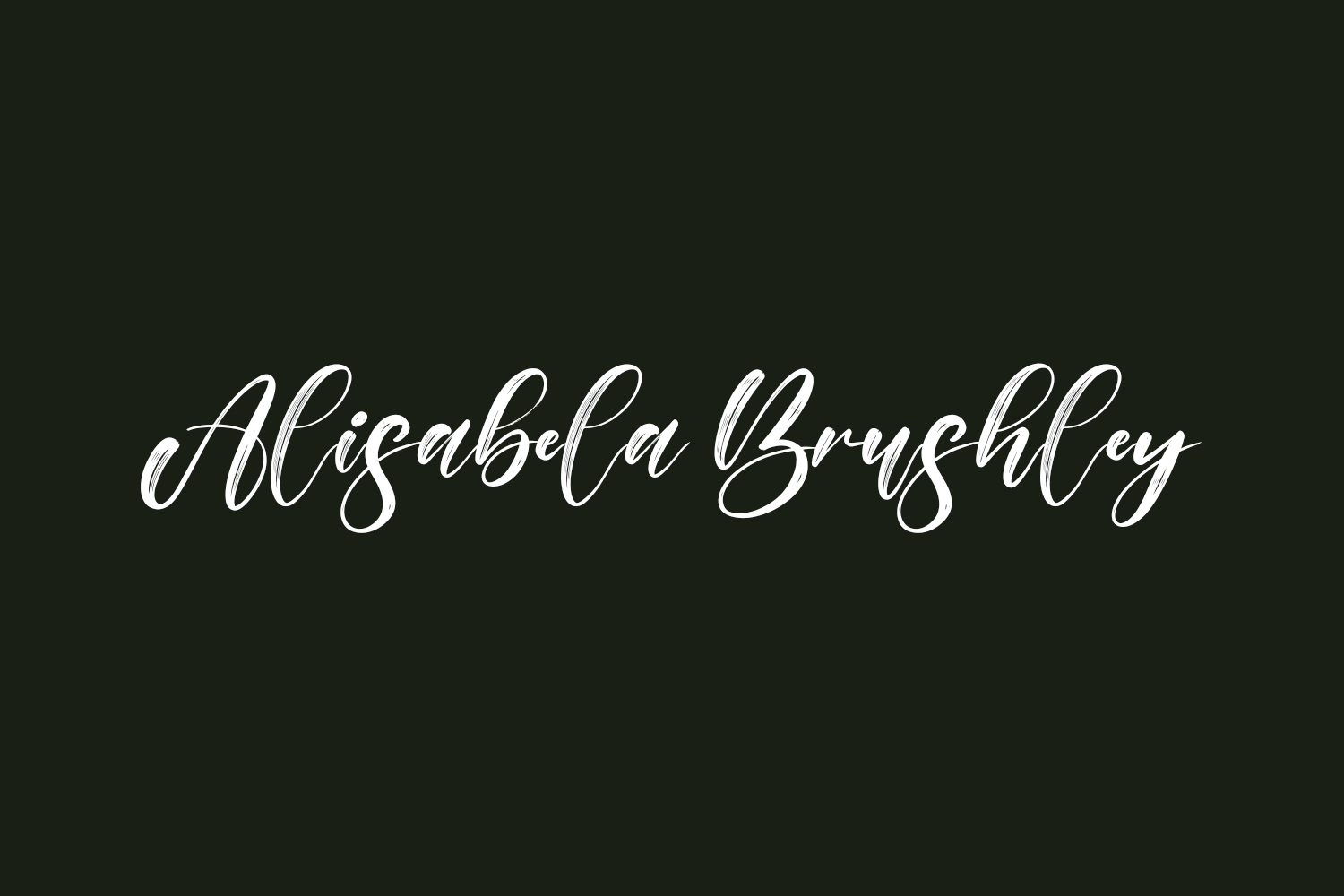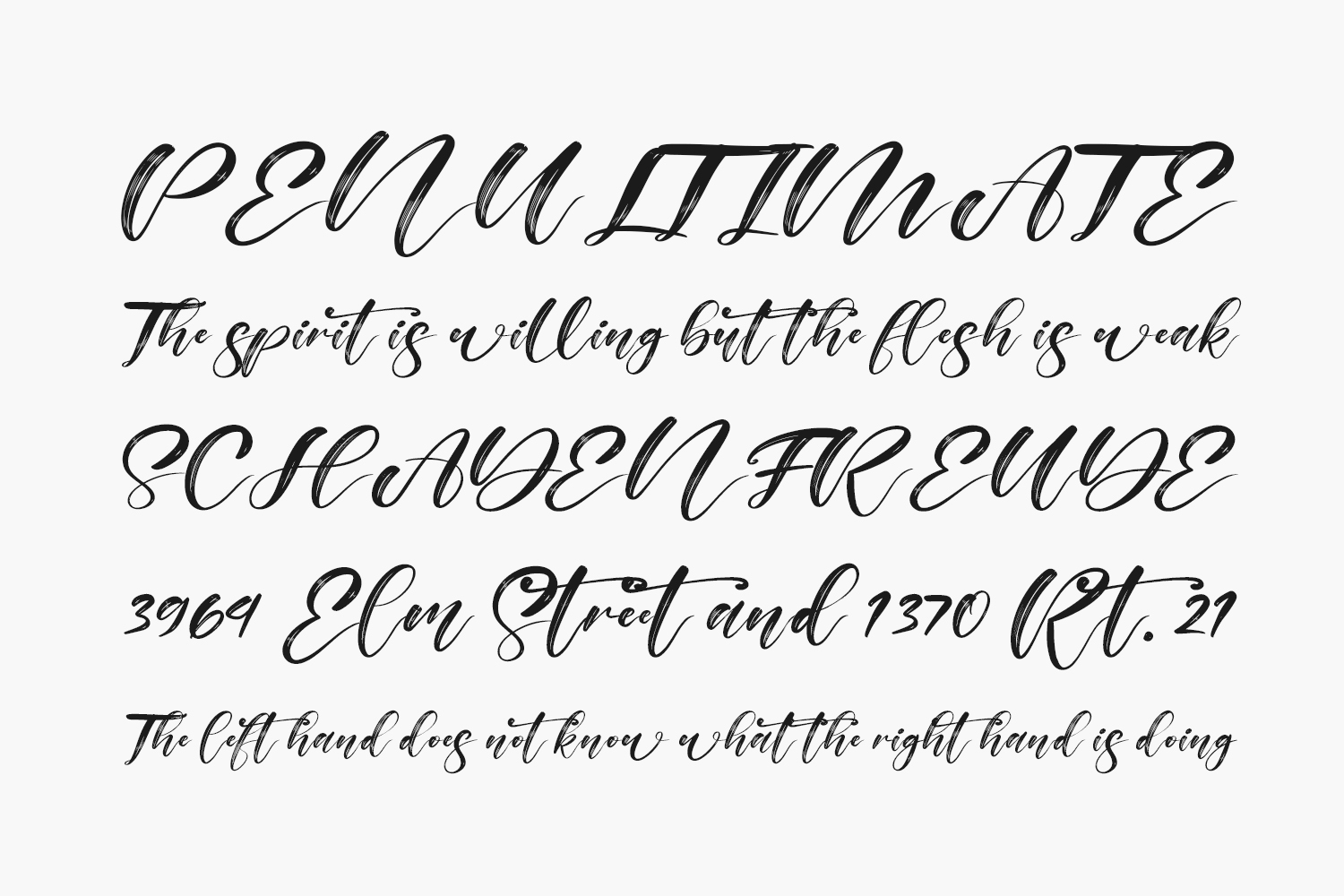
Alisabela Brushley Free Font Family is a stylish and brushed script font. Fall for its ravishing style and use it to create gorgeous wedding invitations, beautiful stationary art, eye-catching social media posts, and much more. Alisabela Brushley Free Font Family was designed by Perspectype Studio and is free for personal use only. Please purchase the full version for commercial use.